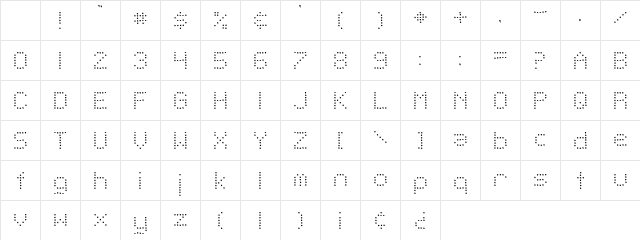
SF Telegraphic Light Regular
Design Context for SF Telegraphic Light
SF Telegraphic Light is a composed and adaptable typeface that performs quietly and consistently across a wide range of design contexts. Its slender proportions lend an understated elegance to any composition.